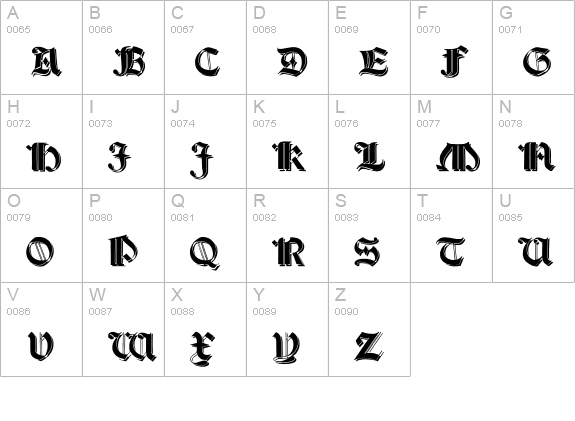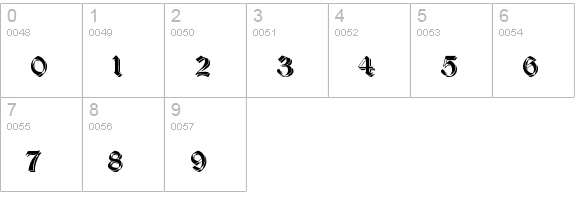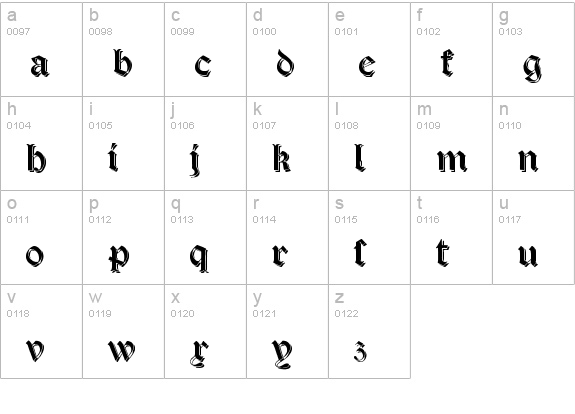
Salterio Shadow Font Details
Salterio Shadow font is a mesmerizing display typeface that exudes elegance and sophistication. Its unique design features delicate strokes and graceful curves that create a sense of fluidity and movement. The shadow effect adds depth and dimension, giving the letters a three-dimensional appearance that captivates the eye. This font is perfect for adding a touch of drama and flair to your designs. Whether you're working on a poster, logo, or any other creative project, Salterio Shadow will make a lasting impression. Its bold and distinct style is sure to grab attention and leave a lasting impact. One of the best aspects of Salterio Shadow font is that it is free to download. You can easily access this remarkable typeface at FontsMarket.com, where you'll find a wide range of high-quality fonts for all your design needs. With just a few clicks, you can bring this captivating font into your creative arsenal, allowing you to express your ideas with style and sophistication. Salterio Shadow font is not just visually appealing, but also highly versatile. Its timeless design makes it suitable for a variety of applications, from branding and advertising to invitations and packaging. No matter the project, this font will elevate your designs and give them a unique and professional touch. In conclusion, Salterio Shadow font is a stunning display typeface that effortlessly combines elegance, style, and versatility. Its free availability at FontsMarket.com makes it accessible to designers and creatives of all backgrounds, allowing them to bring their visions to life with this remarkable font. Download Salterio Shadow today and unleash your creativity like never before.